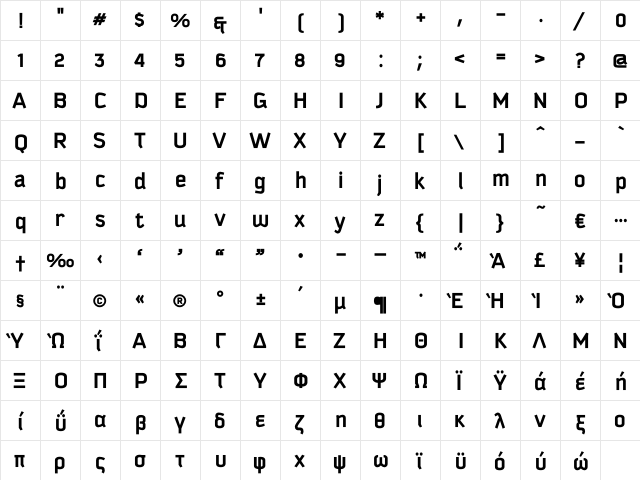
Kautiva Greek Bold Regular
Design Context for Kautiva Greek Bold Typeface
Kautiva Greek Bold is a composed and adaptable typeface that performs quietly and consistently across a wide range of design contexts. The heavy weight commands attention and anchors typographic hierarchies.